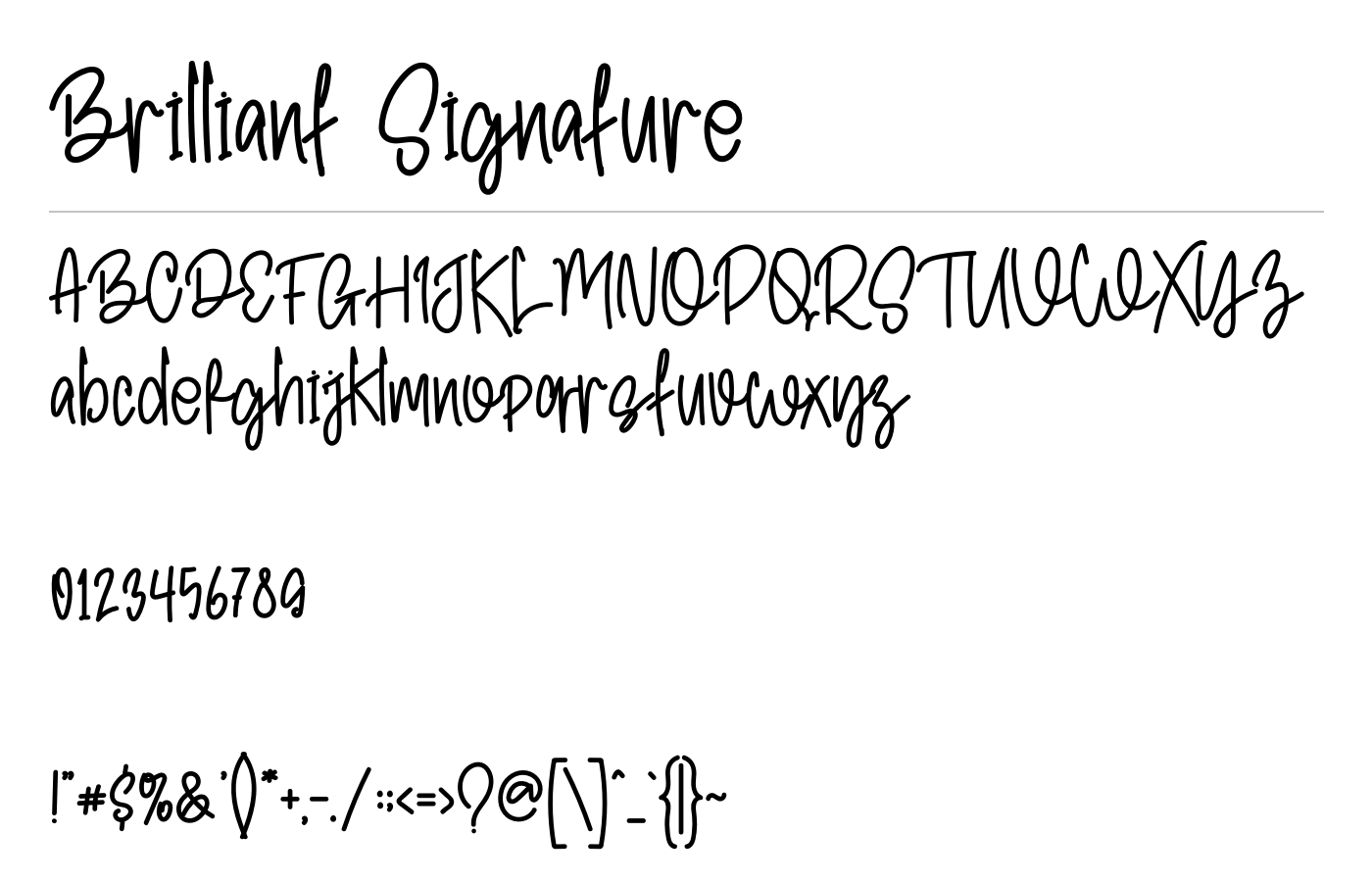
Brilliant Signature is a playful and casual handwritten script font with a tall, narrow structure and smooth, flowing strokes that mimic natural handwriting. Its light weight and lively letterforms create a friendly and approachable feel, making it ideal for personal branding, creative projects, and informal invitations. This font works best in contexts where a personal, authentic touch is desired, such as logos, social media graphics, and modern lifestyle branding.
Brilliant Signature Font